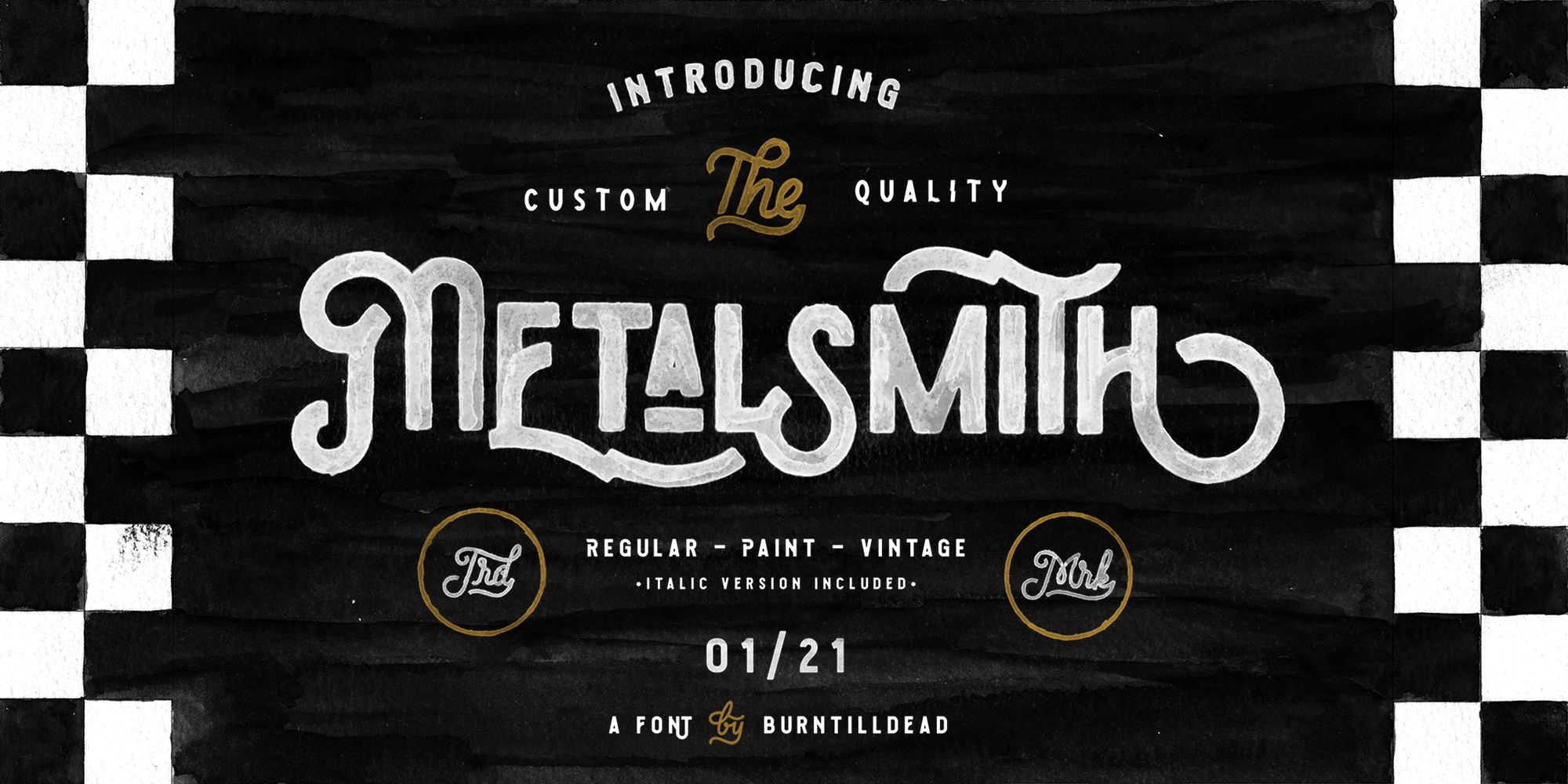
Metalsmith Font Free Download – A Rugged Industrial Typeface for Bold Branding
Looking for a font with raw mechanical power? Metalsmith Font Free Download delivers a heavy-duty display face perfect for automotive branding, construction companies, sports logos, and any project needing tough, industrial-strength typography. Its welded-metal aesthetic and chunky letterforms create instant impact.
Why Choose Metalsmith Font?
Metalsmith Font Free Download stands out with its:
Forged-metal letterforms with authentic industrial texture
Perfect for masculine, rugged branding
Includes welded joint details for realistic metalwork effect
Excellent readability even in challenging environments
Metalsmith Font Free Download – Industrial Typography Power
Build your toughest designs with this heavyweight typeface for:
Auto parts branding & motorcycle logos
Construction equipment & tool packaging
Sports team identities & fitness branding
Industrial product labels & trade show graphics
Designer Tip: Combine with steel textures and hazard stripes for ultimate workshop authenticity!
(Typography Tip: Use all-caps with tight spacing for maximum metal density!)